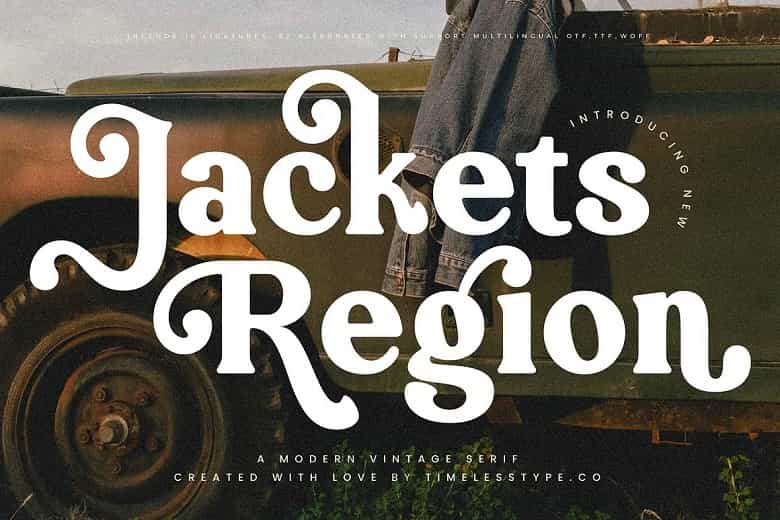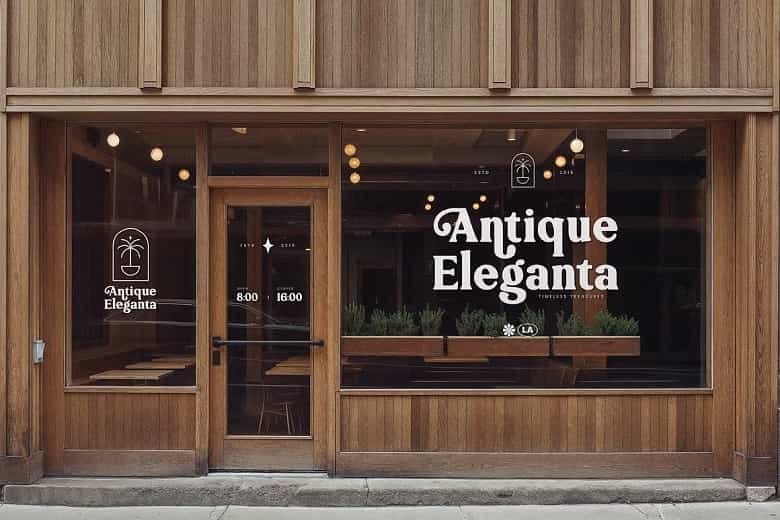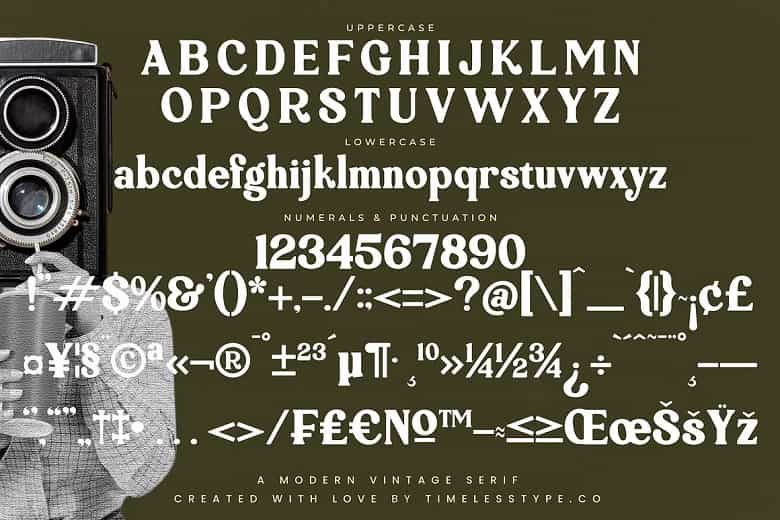
The Jackets Region Font is a vintage serif font that is hard to overlook because of its strong forms. Suitable for any projects such as: Logos, branding projects, homeware designs, product packaging, posters, shopping bags, t-shirts, book covers, name card, invitation cards, greeting cards, label, photography, special events, and all your other luxury and beautiful projects that need a luxury serif taste.